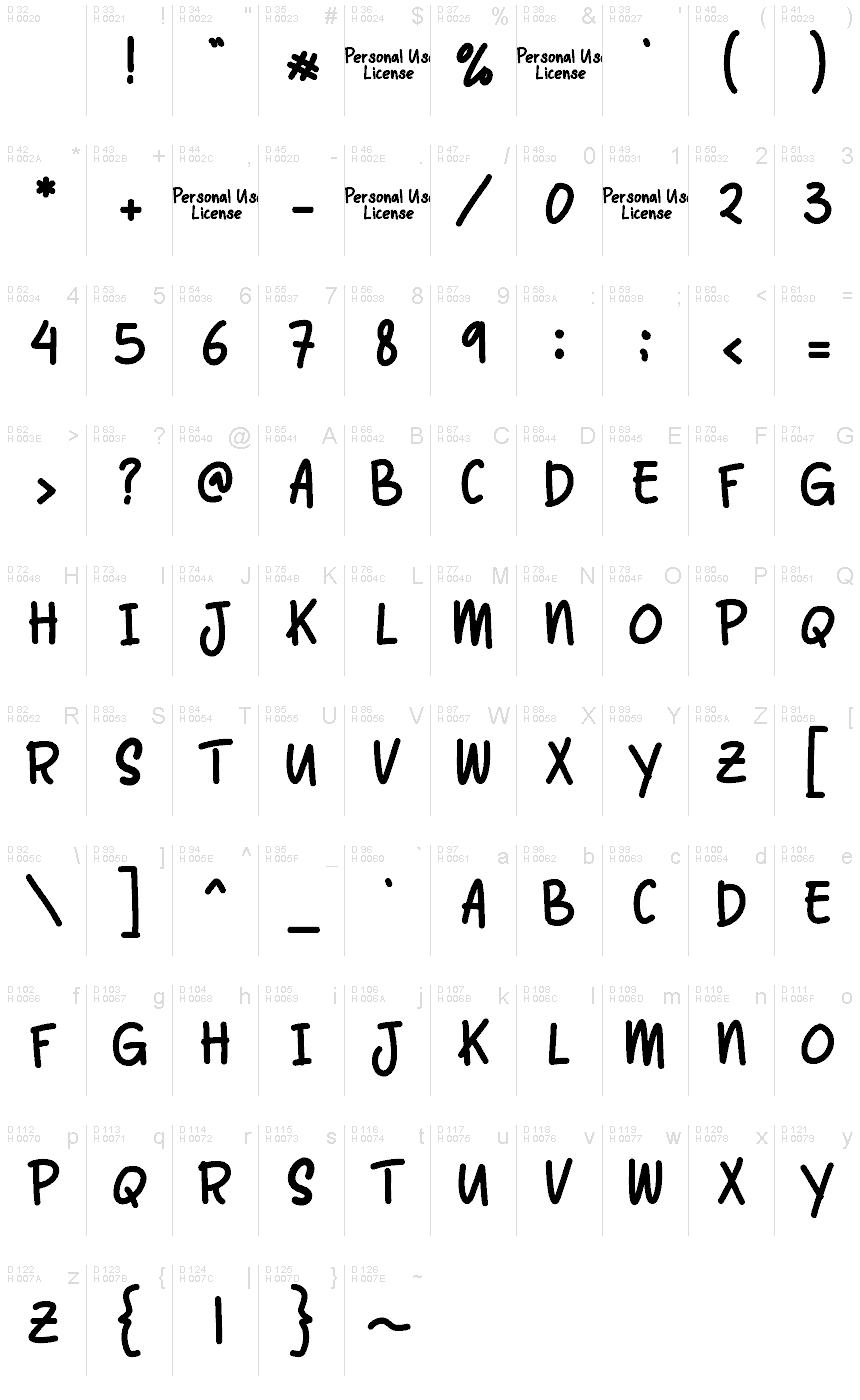
Balltimore Caps Demo
Balltimore Caps font by Java Pep is a free handwritten font that brings a hand-drawn feel and casual appearance to its style. Its expressive characters reflect artistic touches and relaxed mood, ideal for contemporary applications in modern art designs.
Use the typeface in product packaging, logo design for new brands or rebranding projects, social media visuals, ads, posters or flyers to decorate their headers. Film titles or book covers using it will have a new upgrade while this beautiful font can even be used on personal website designs.